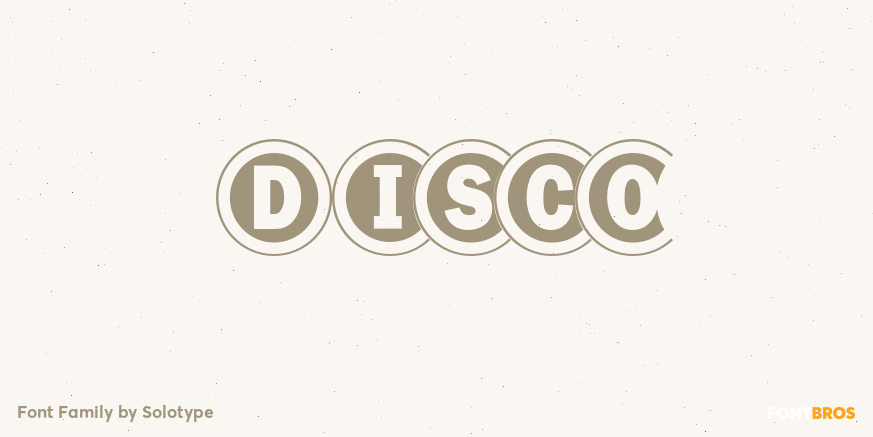
HomeFont BrosSpecial EffectDisco Special Effect Disco FacebookXPinterestWhatsApp 1 of 1 About Disco Each letter or character comes in two forms on this font: One as a complete disc, the other as a disc with a segment removed so the succeeding character can overlap the preceding one.  DOWNLOAD ON FONT BROSThis font is sold and delivered by Font Bros. Font Canyon may earn a commission if you buy through this link. People also explored Ontime Font Rangge Font Dragonfly Script Font Rafika Font Settiya Font Muinerve Bold Font Choco Chici Font Waiters Font Little Bondy Font 306 0 TagsDiscoDisco Font Previous articlePopgod ProNext articleChristine LEAVE A REPLY Cancel reply Comment: Please enter your comment! Name:* Please enter your name here Email:* You have entered an incorrect email address! Please enter your email address here Website: Save my name, email, and website in this browser for the next time I comment. Personal Use Free Deling Personal Use Free Read more about this font Eaglese Personal Use Free Read more about this font Baveuse Personal Use Free Read more about this font Gupis Personal Use Free Read more about this font BLOG How to Install and Use Fonts on Windows, macOS, and Web Projects How to Install and Use Fonts on Windows, macOS, and Web Projects Fonts are a crucial part of design and branding. Whether you’re designing a... Exploring Font Trends Best Fonts for YouTube Videos: Make Your Thumbnails Stand Out Modern Sans-Serif Fonts That Brands Love in 2025